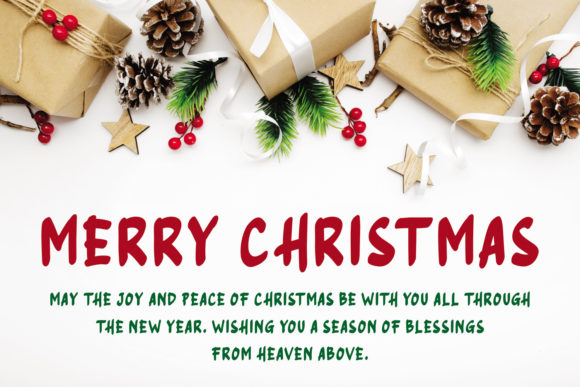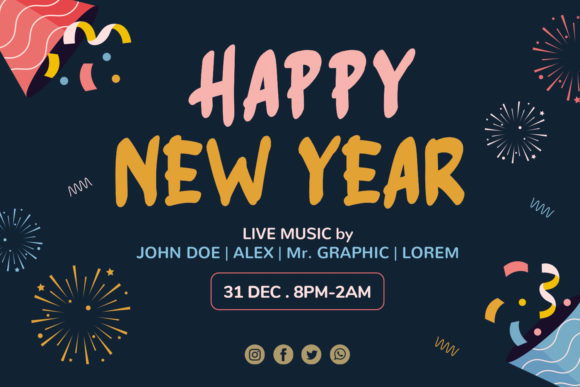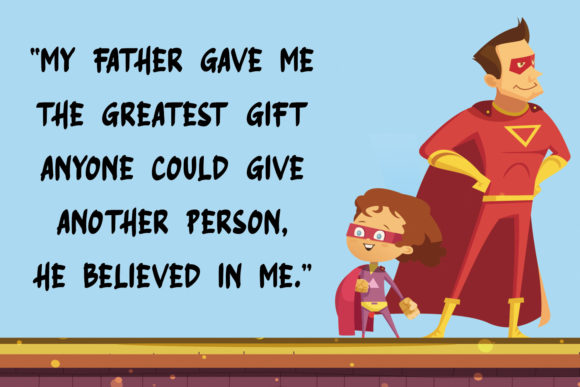
Introduction to Northland Font
Northland is a cool, thick lettered and simple display font.
Why Choose Northland Font?
Northland Font offers exceptional quality and versatility, making it a valuable addition to your design toolkit. Whether you’re creating for personal projects or commercial use, Northland Font delivers professional results.